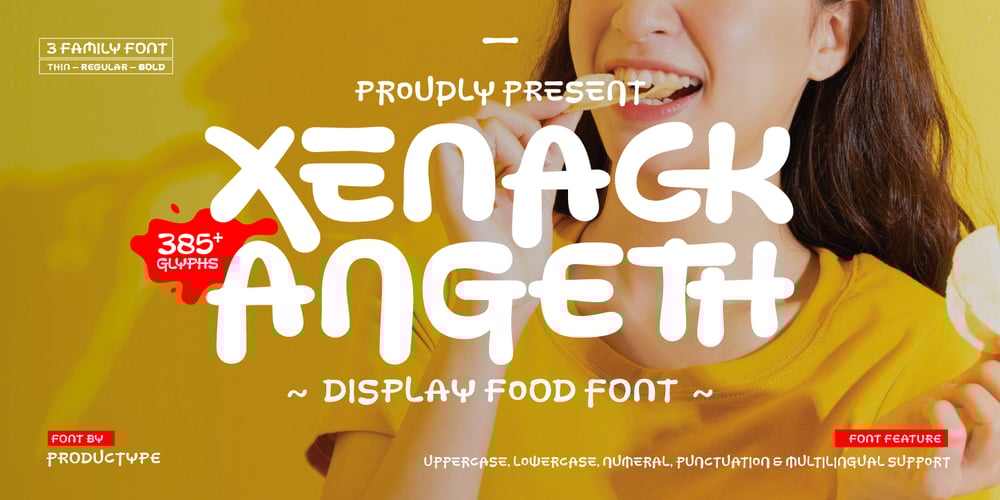
Xenack Angeth
Xenack Angeth font
Xenack Angeth Font Family was designed by Lita Faolina and published by Product Type. Xenack Angeth contains 3 styles and family package options. Xenack Angeth is a font designed to bring fresh air and a new look to food branding. Created to break the monotony of existing fonts, Xenack Angeth introduces unique and refreshing letterforms—perfect for snack brands that want to stand out.With playful yet professional character shapes, Xenack Angeth is ideal for logos, product packaging, promotional posters, and the visual identity of snack brands. This font delivers a fresh and innovative feel, helping brands appear more distinctive and memorable to customers.Font Features:✅ 3 Font Styles: Thin, Regular, Bold✅ Uppercase & Lowercase✅ Numeral & Punctuation✅ Alternate & LigatureMake your food branding design stand out with Xenack Angeth—because every brand deserves a unique identity!**What’s Included:**- All glyphs and Feature- We highly recommend using a program that supports OpenType features and Glyphs panels like many Adobe apps and Corel Draw so that you can see and access all Glyph variations.- PUA Encoded Characters, Fully accessible without additional design software.- Fonts include Multilingual: Support for 85 languagesAfrikaans, Albanian, Asu, Basque, Bemba, Bena, Breton, Catalan, Chiga, Cornish, Croatian, Czech, Danish, Dutch, Embu, English, Esperanto, Estonian, Filipino, Finnish, French, Friulian, Galician, Gusii, Hungarian, Indonesian, Irish, Italian, Kabuverdianu, Kalenjin, Kamba, Kikuyu, Kinyarwanda, Latvian, Lithuanian, Lower, Sorbian, Luo, Luxembourgish, Luyia, Machame, Makhuwa-Meetto, Makonde, Malagasy, Maltese, Manx, Meru, Morisyen, North, Ndebele, Norwegian Bokmål, Norwegian Nynorsk, Nyankole, Oromo, Polish, Portuguese, Quechua, Romanian, Romansh, Rombo, Rundi, Rwa, Samburu, Sango, Sangu, Scottish, Gaelic, Sena, Serbian, Shambala, Shona, Slovak, Slovenian, Soga, Somali, Spanish, Swahili, Swedish, Swiss German, Taita, Teso, Turkish, Upper Sorbian, Uzbek (Latin), Volapük, Vunjo, Walser, Zulu.